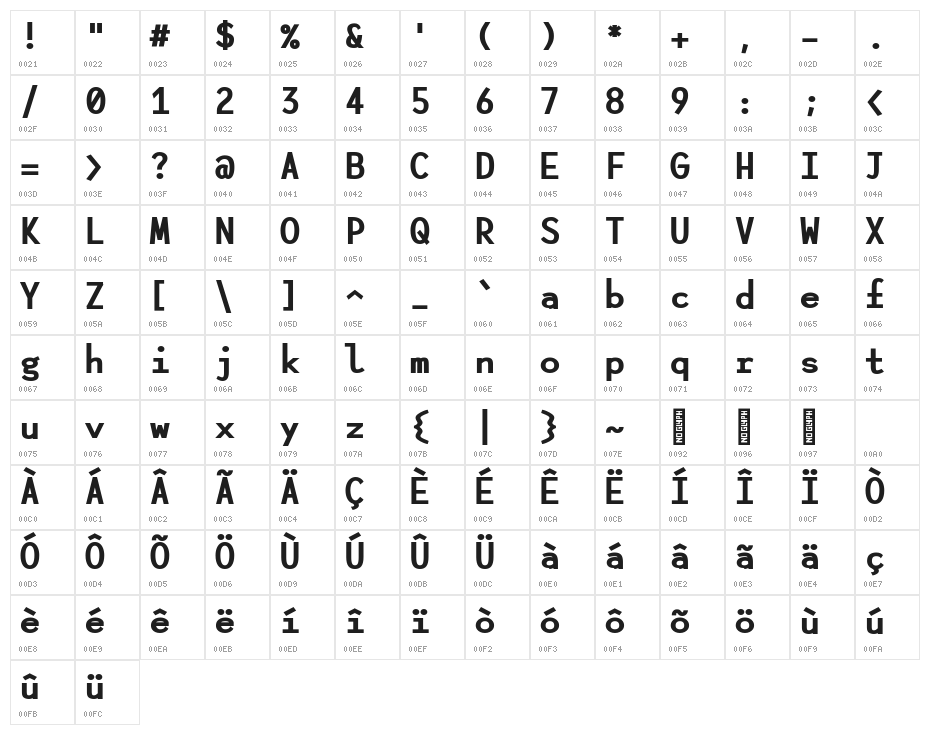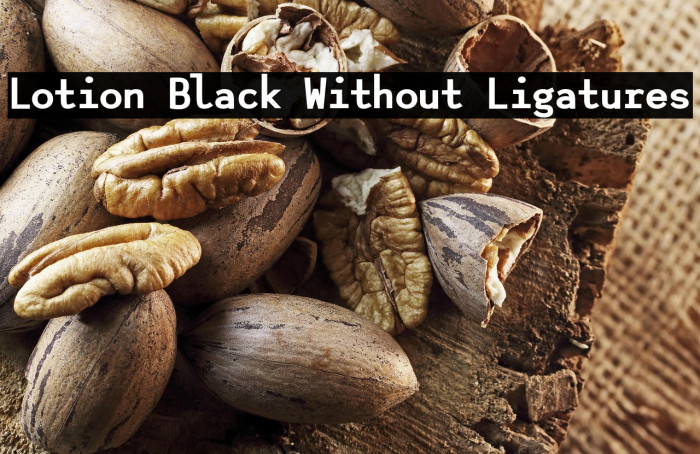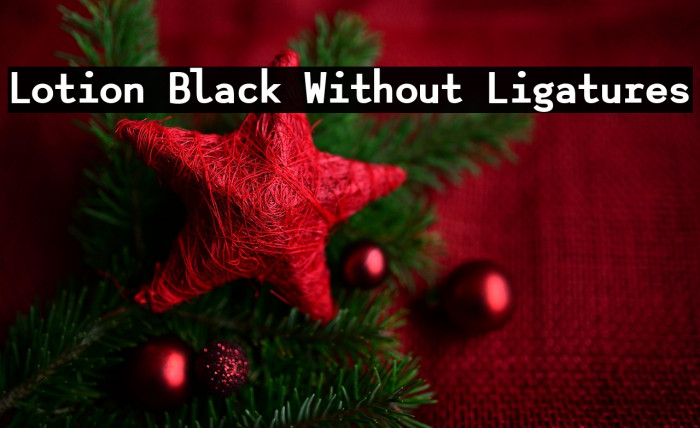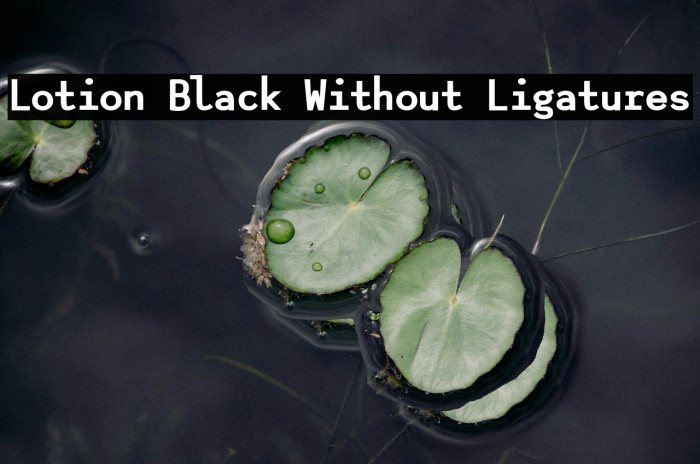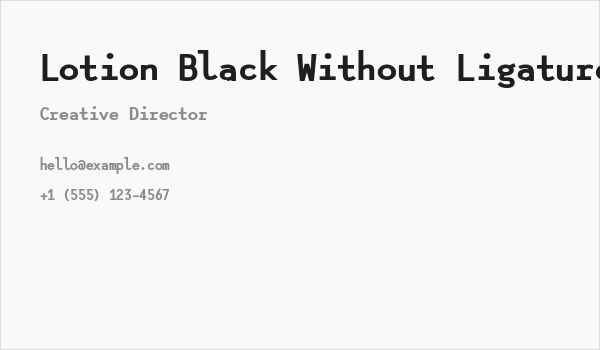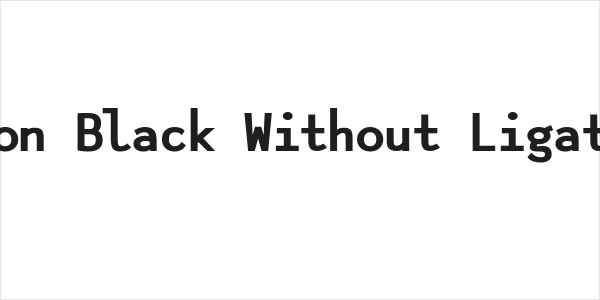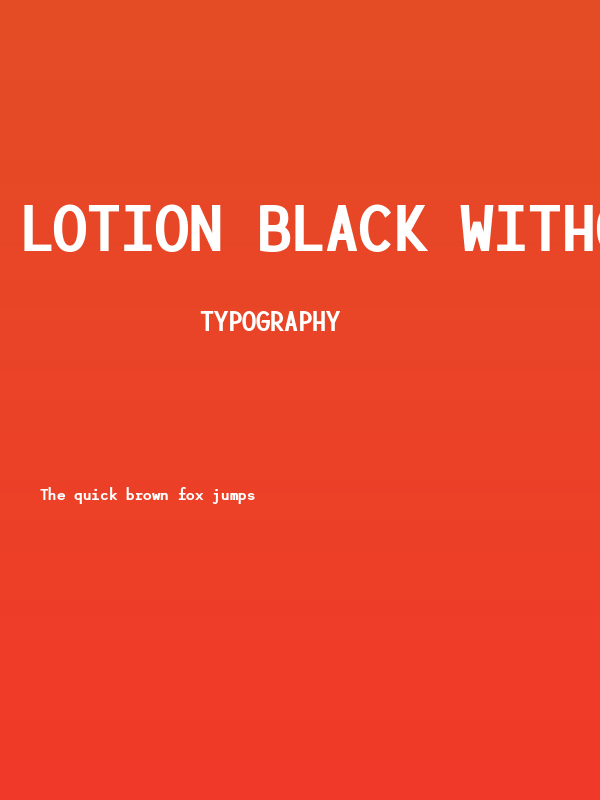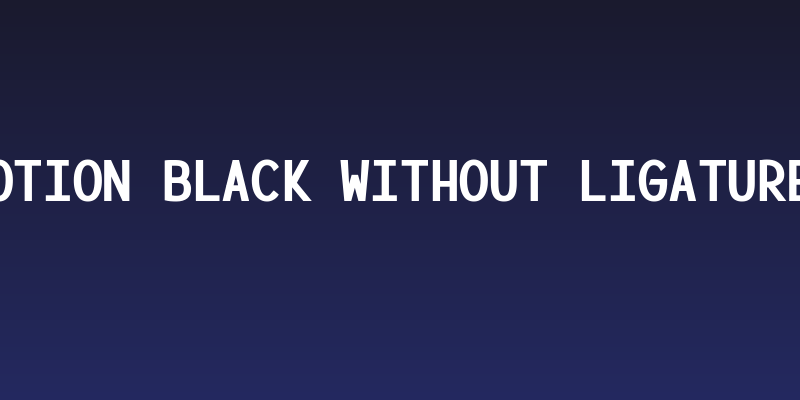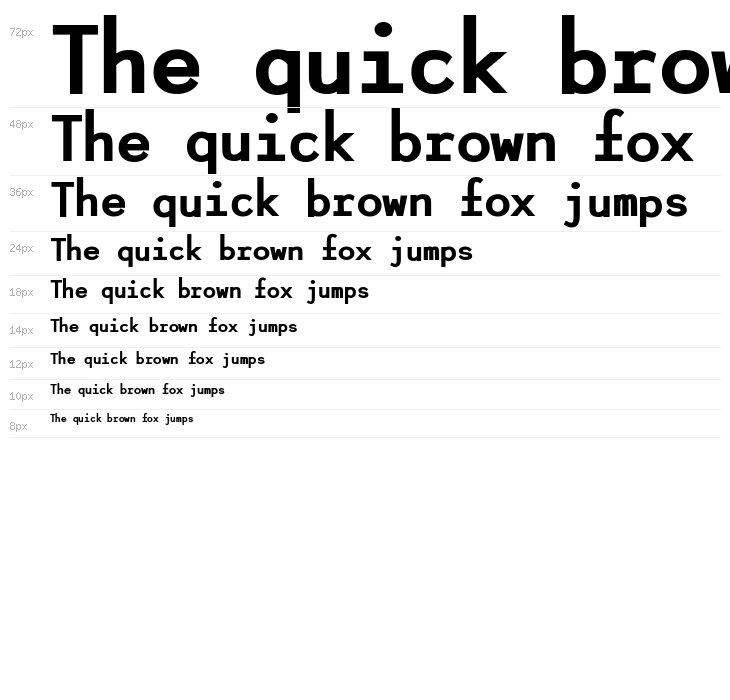
Lotion Black Without Ligatures Font
Lotion Black Without Ligatures Description
This font features bold, geometric letterforms with a strong presence. The uppercase letters are uniform in height, creating a cohesive and structured appearance. The lowercase letters maintain a consistent style, with rounded edges that add a touch of softness to the overall boldness. The numerals are clear and easily distinguishable, making them suitable for various applications. Special characters are well-defined, ensuring readability and versatility. The font's design is modern yet timeless, making it adaptable for both contemporary and classic projects.
| Proposed Projects | Ideal for branding, headlines, posters, and digital media where a strong visual impact is desired. |